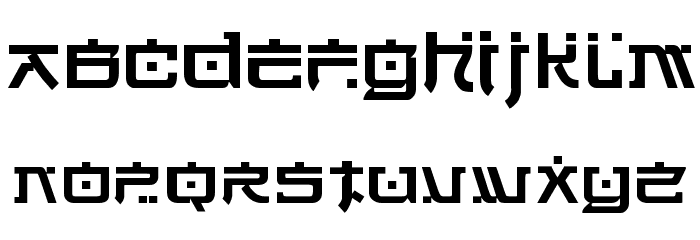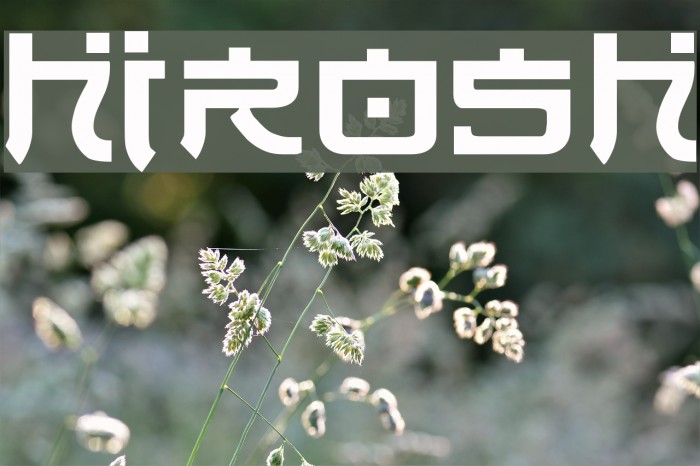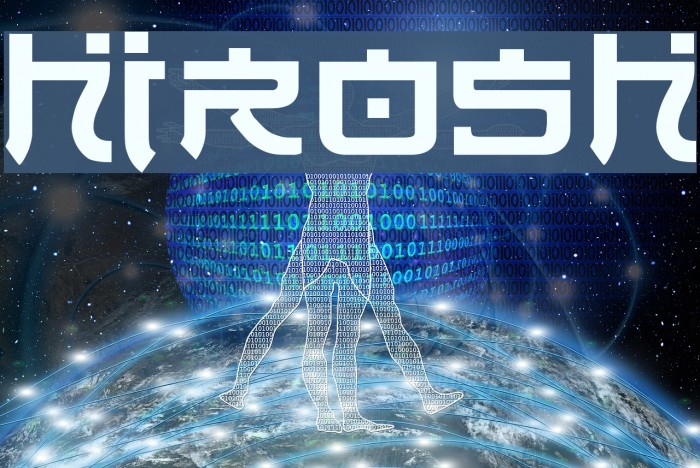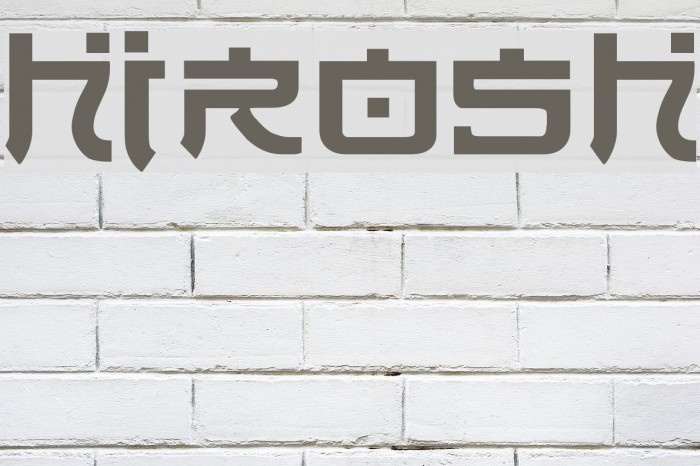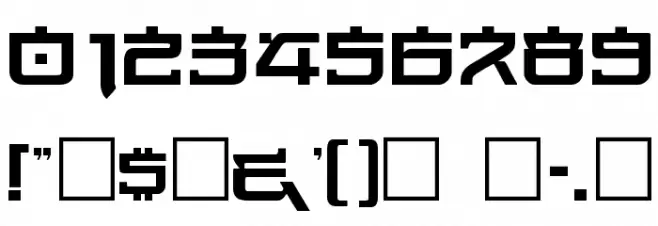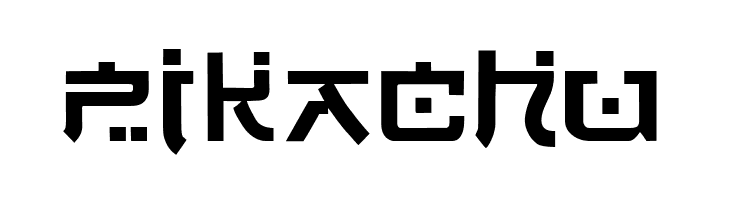
Hirosh Font
This font features a bold, geometric design with a futuristic and digital aesthetic. The characters are constructed with sharp angles and straight lines, giving it a mechanical and structured appearance. The uppercase and lowercase letters maintain a consistent style, with unique angular cuts and a blocky form. Numbers and special characters follow the same design principles, ensuring uniformity across the font. The overall look is modern and tech-inspired, making it suitable for projects that require a strong, impactful visual presence.
A bold, geometric font with a futuristic, digital aesthetic.
- Proposed Projects: Ideal for technology branding, video game titles, sci-fi movie posters, and digital art projects.